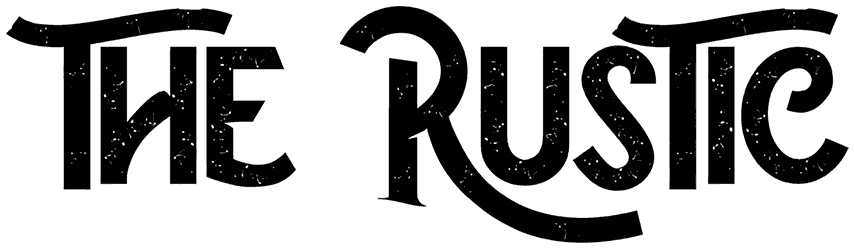
The Rustic Font
The Rustic is a retro font that has elongated and rounded edges, so it has a very outstanding look and draws the audience’s attention to your graphic work. Although this font does not support lowercase letters, numbers,…
The Rustic is a retro font that has elongated and rounded edges, so it has a very outstanding look and draws the audience’s attention to your graphic work. Although this font does not support lowercase letters, numbers, and punctuation, it can add a sense of classic, vintage, and precision to logos, engravings, tattoos, stickers, and flyers.